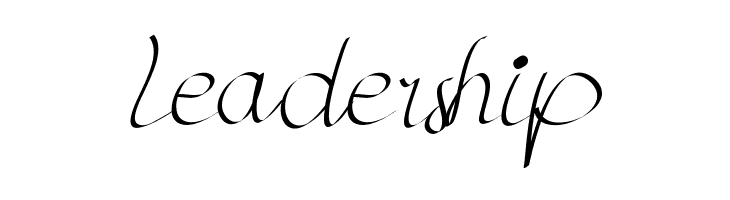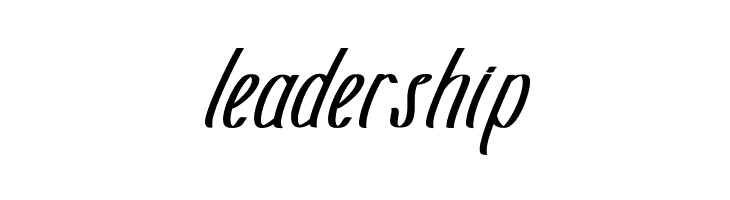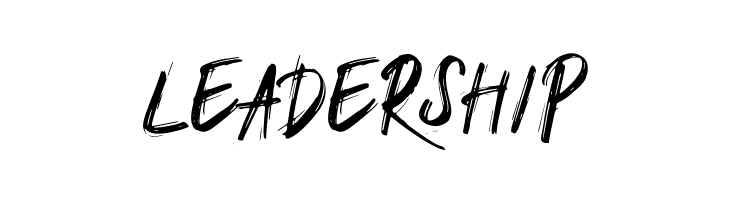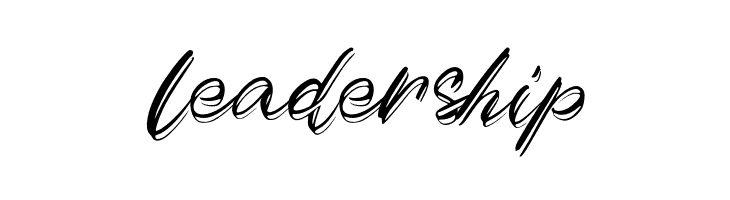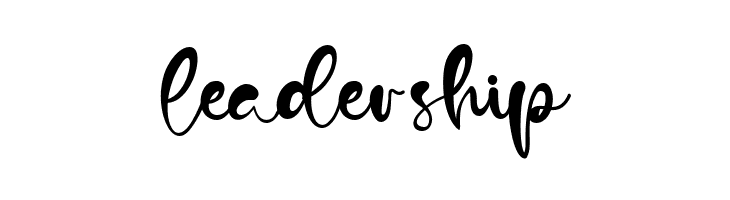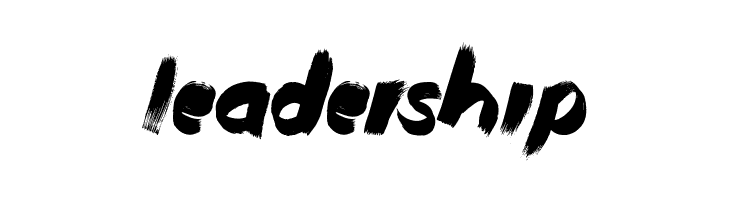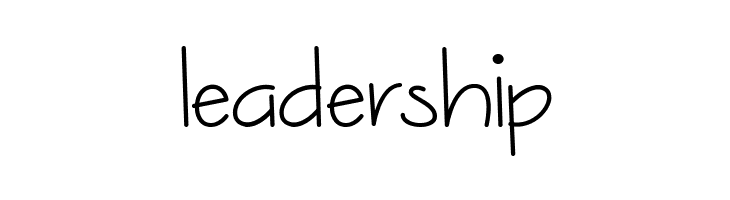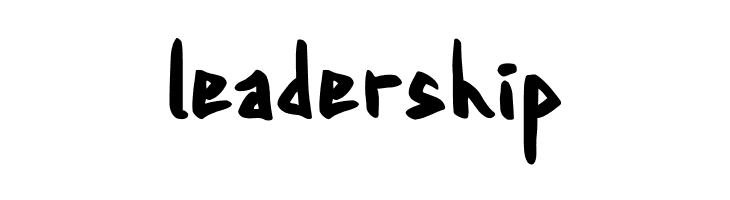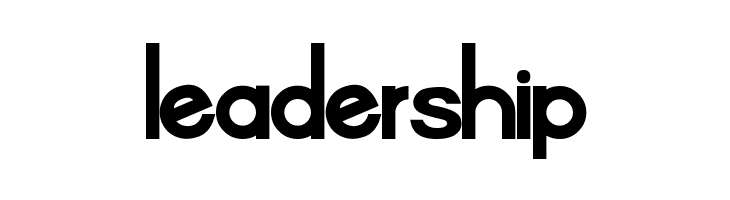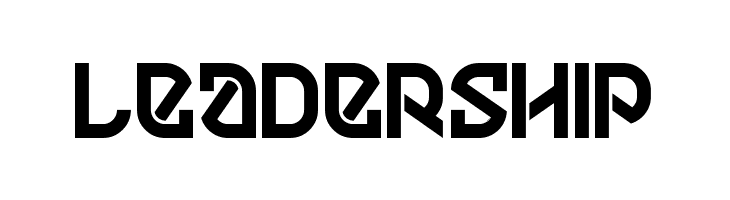
A playful, handwritten font with rounded edges and a casual style.
A decorative and flowing font with artistic letterforms.
A bold, blocky font with a modern, geometric influence.
A bold, brushstroke font with dynamic and textured characters.
A playful, handwritten-style font with rounded edges and medium contrast.
A dynamic and elegant script font with high contrast and flowing letterforms.
A bold, expressive script font with high contrast and decorative flourishes.
A bold, geometric font with clean lines and a modern, approachable style.
A bold, brush-style font with dynamic, hand-drawn strokes.
A dynamic and elegant script font with flowing, cursive letterforms.
An angular, geometric font with a fantasy or ancient script aesthetic.
A bold, angular font with a futuristic and ancient script-like appearance.
A bold, italicized font with angular, geometric characters, perfect for fantasy themes.
A bold, angular font with an italicized, mystical appearance.
A bold, decorative font with irregular, hand-drawn strokes and a chaotic, artistic style.
A jagged, edgy font with sharp, irregular characters ideal for dramatic themes.
A playful, bold, and hand-drawn font with whimsical curves and thick strokes.
A bold, hand-drawn font with a playful, comic-like style.
A bold, geometric font with strong, angular lines and a modern, comic book style.
A clean, modern sans-serif font with geometric influences.
A bold, 3D-style font with characters enclosed in square frames, offering a retro and structured look.
A bold, playful script font with a lively handwritten style.
A lively, flowing script font with elegant cursive letterforms.
A lively and expressive script font with fluid, cursive strokes and playful loops.
A bold, geometric font with a futuristic and modern aesthetic.
A bold, textured font with a vintage yet modern appeal.
A bold, pixelated font inspired by retro digital displays.
A playful, bold font with rounded strokes and geometric elements.
A graceful and fluid script font with elegant, cursive strokes.
A geometric, angular font with a futuristic and dynamic style.
A bold, dynamic serif font with a slight slant and strong presence.
A bold, decorative font with card suit symbols integrated into certain characters.